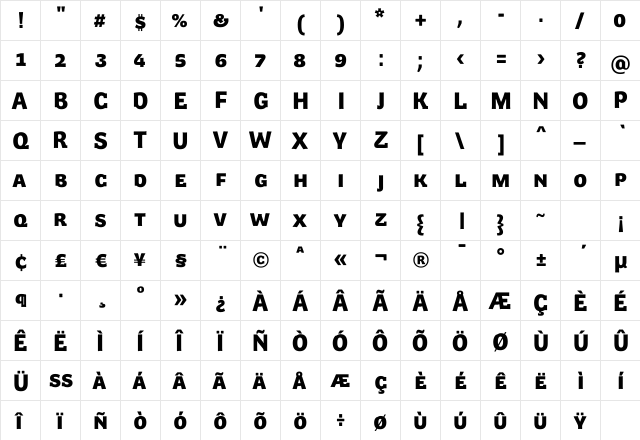
SpotkaBlack SC Regular
SpotkaBlack SC is a composed and adaptable typeface that performs quietly and consistently across a wide range of design contexts.